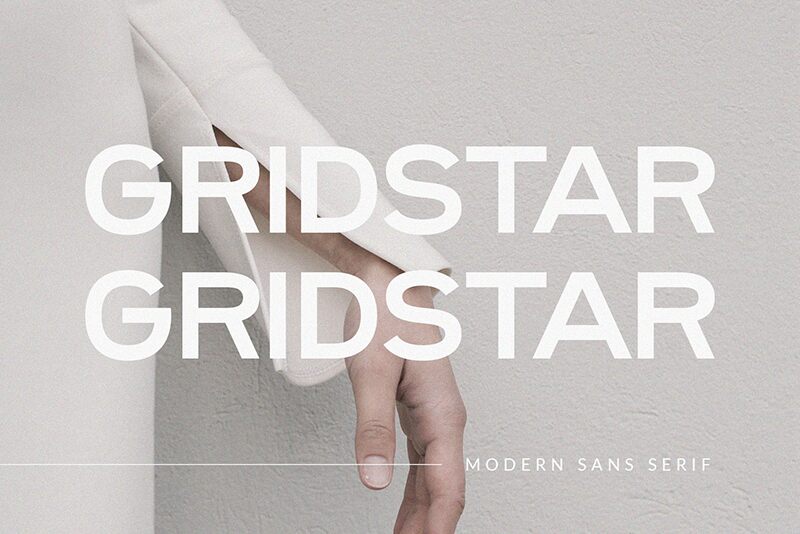
Gridstar Regular
Gridstar, designed by BrandSemut, is a sans serif marvel that exudes modernity and boldness. Its expanded characters create a commanding presence on the page, offering a blend of clarity and contemporary flair. The font's aesthetic reflects an architectural quality, reminiscent of the precision and balance found in modern design.
This font is particularly well-suited for impactful headlines and branding where a sense of strength and innovation is desired. Its wide stance makes it ideal for statement-making in advertising or digital media where readability at large sizes is paramount. With Gridstar, designers can confidently craft visuals that stand out with sophistication and assertive grace.